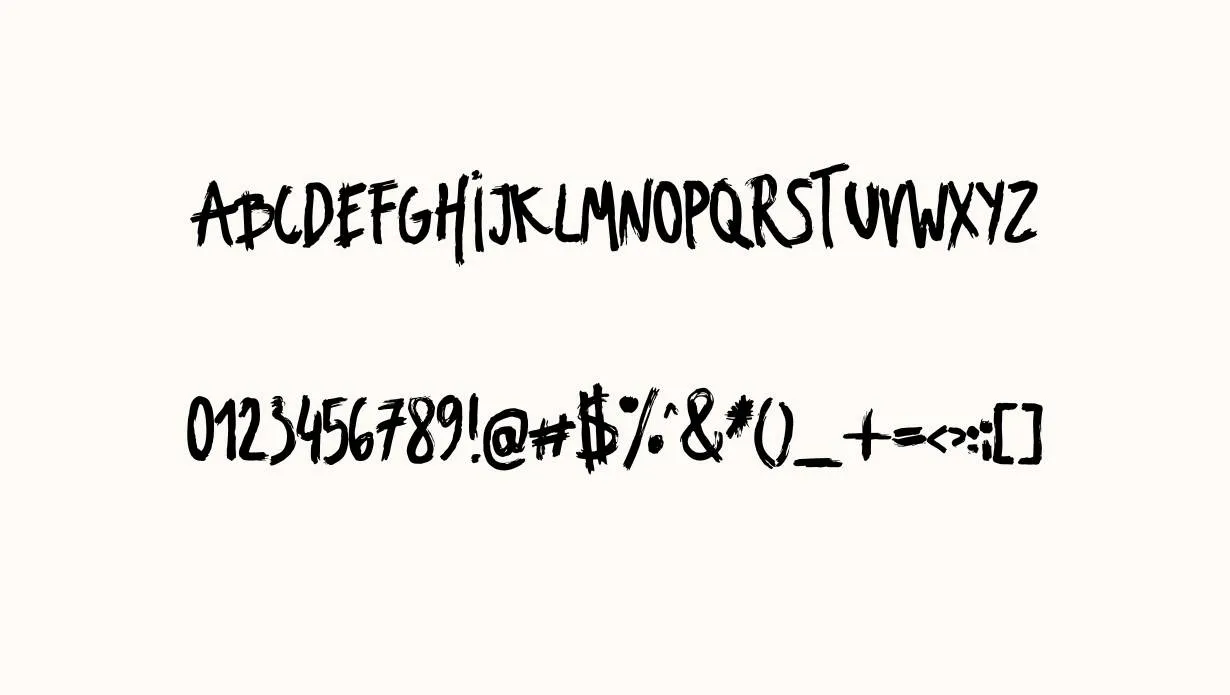
Nafta Brush Font introduces a dynamic and expressive design with its brushstroke-inspired letterforms. This font adds a touch of authenticity and artistic charm to your projects. Ideal for creative endeavors, posters, or branding materials, Nafta Brush Font injects energy and personality into the typography.
Its handcrafted appearance and textured details contribute to creating a visually appealing and dynamic typographic solution.
| Name | Nafta Brush Font |
| Designer | Type Associates |